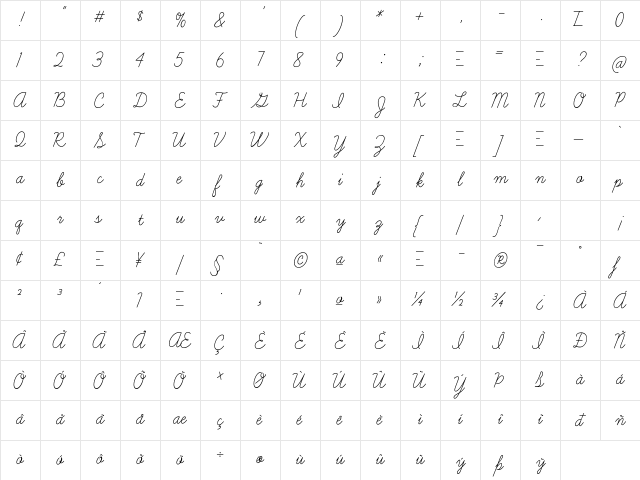
Learning Curve Pro Regular
| Foundry | BV Fonts |
| Designer | Jess Latham |
Design Context for Learning Curve Pro Typeface
Learning Curve Pro is a composed and adaptable typeface that performs quietly and consistently across a wide range of design contexts.